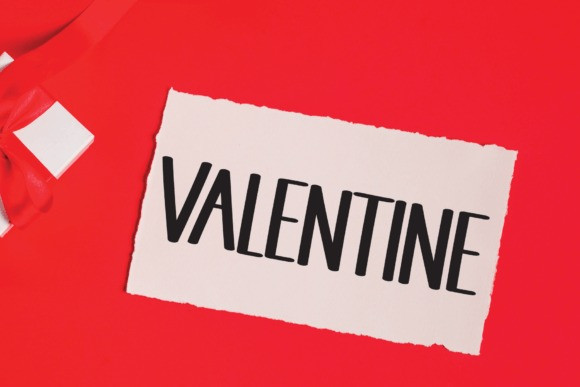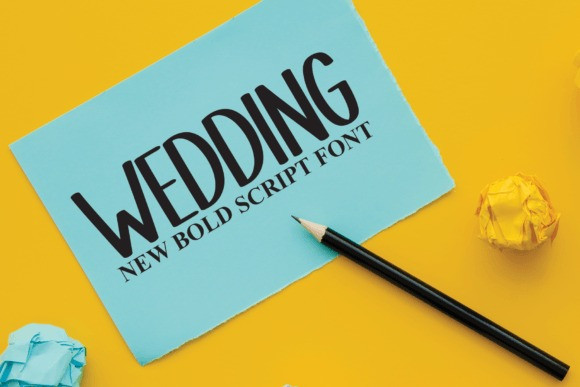
Workspace Display Font
Workspace Display Font, This font’s latest style letters are perfect for wall displays, wedding invitations, social media post logos, advertisements, product packaging, product designs, labels, photography, watermarks, invitations, stationery, and any project that requires impeccable typography.